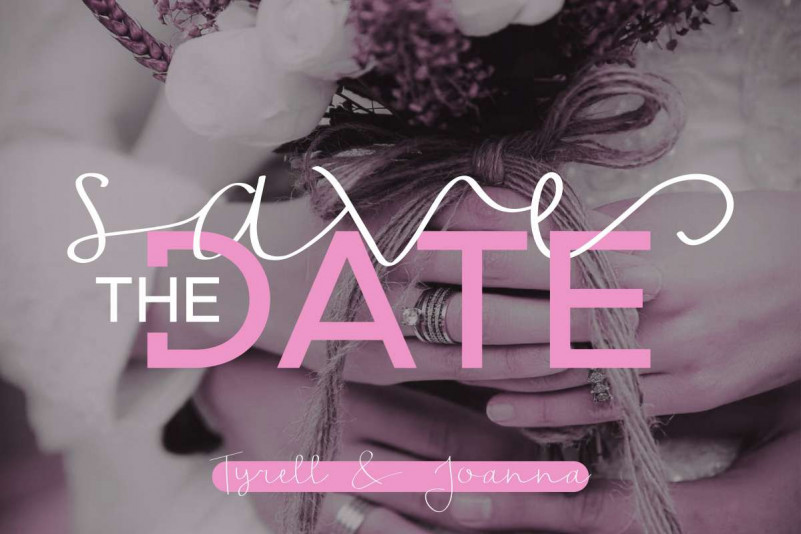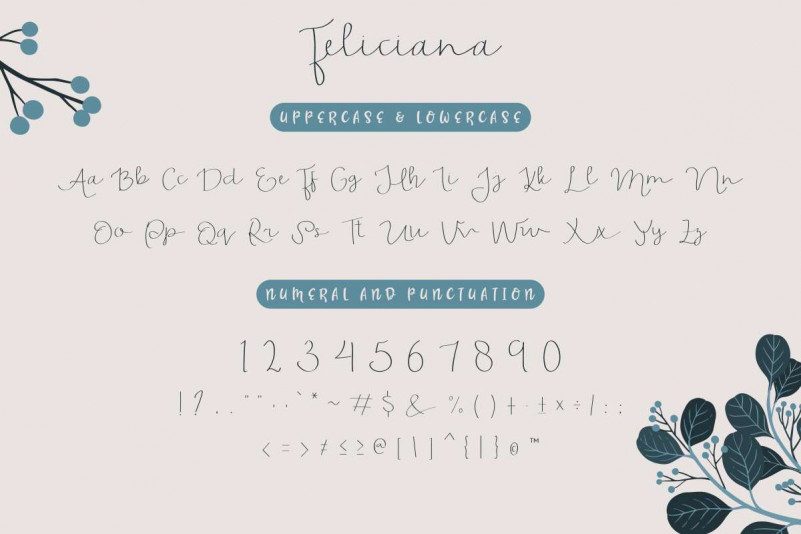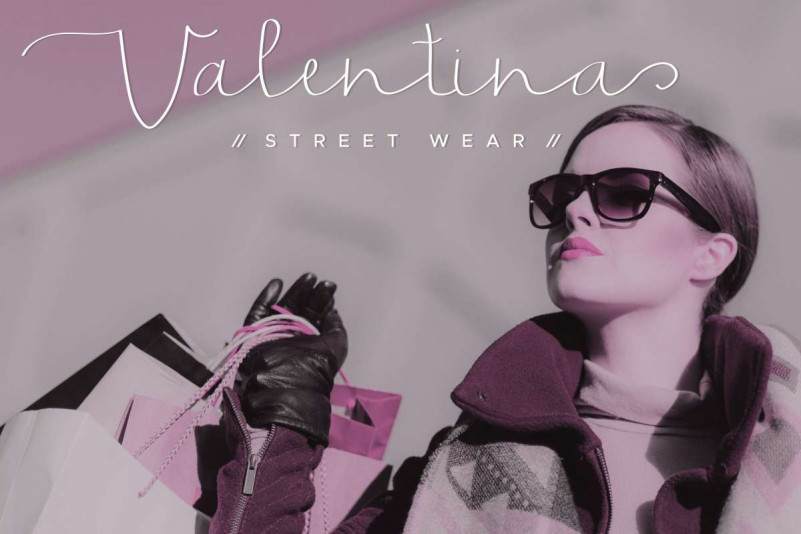
Feliciana Handwritten Font
Hi! It’s : Feliciana Handwritten Font This is a handwritten script font. It has beautiful glyhps. This font will be great for branding, logo, stationery, business card, signage, flyer, brochure etc. There are many industries that is suitable for this font : real estate, music, law firm, make up et